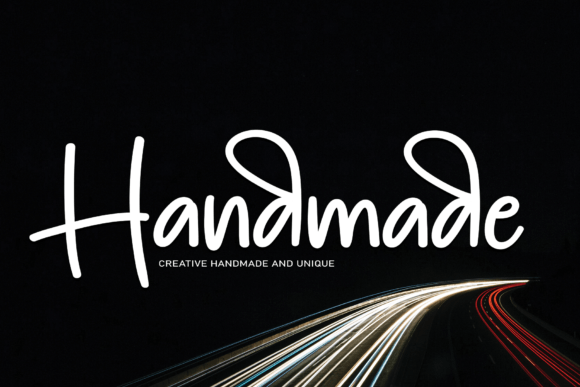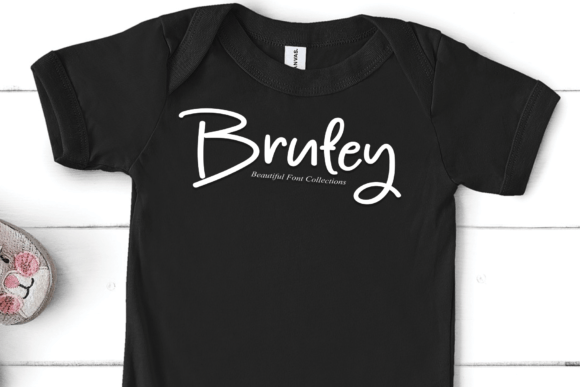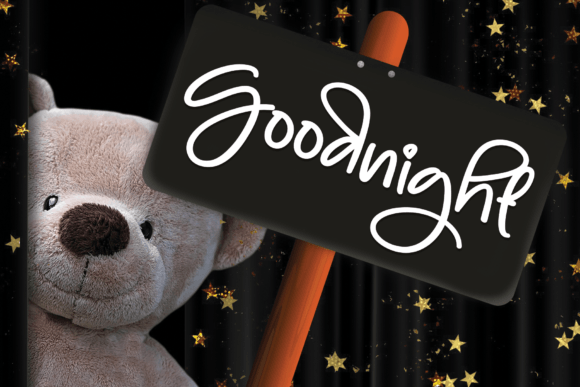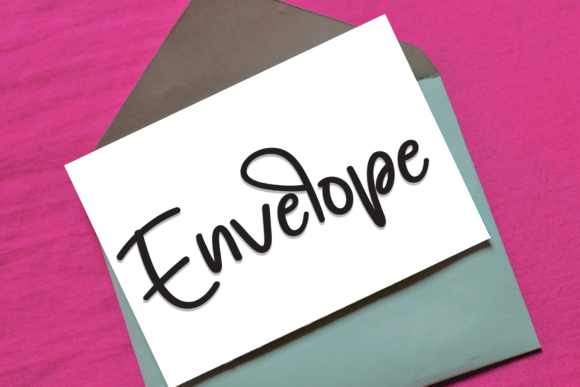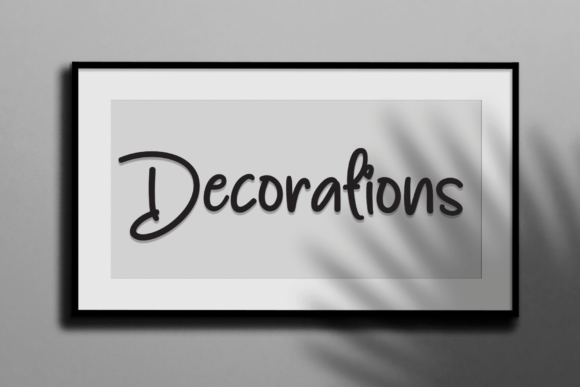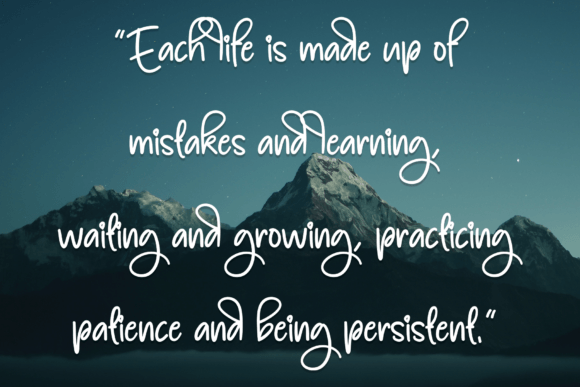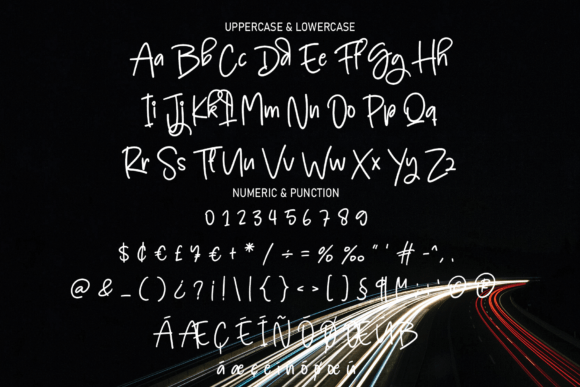
Introducing Handmade, a beautiful handwritten font crafted to add a touch of charm and authenticity to your creative projects. Whether you’re working on wall displays, wedding invitations, social media post logos, advertisements, product packaging, labels, photography, or any project that demands a handwritten touch, Handmade is the perfect choice.
The beauty of Handmade lies in its handcrafted and personalized appearance, making it well-suited for a variety of applications. Imagine using it in wedding invitations, where it brings a warm and heartfelt feel to the celebration. Visualize Handmade on social media posts or product packaging, where its handwritten charm adds a unique touch to your brand.
Handmade is not just a font; it’s a design asset that brings a sense of authenticity to your projects. Download it today and experience how it elevates your wall displays, invitations, logos, and various design endeavors. Make Handmade a cherished addition to your font collection, and let it be the key to unlocking a world of handwritten taste and charm in your designs!